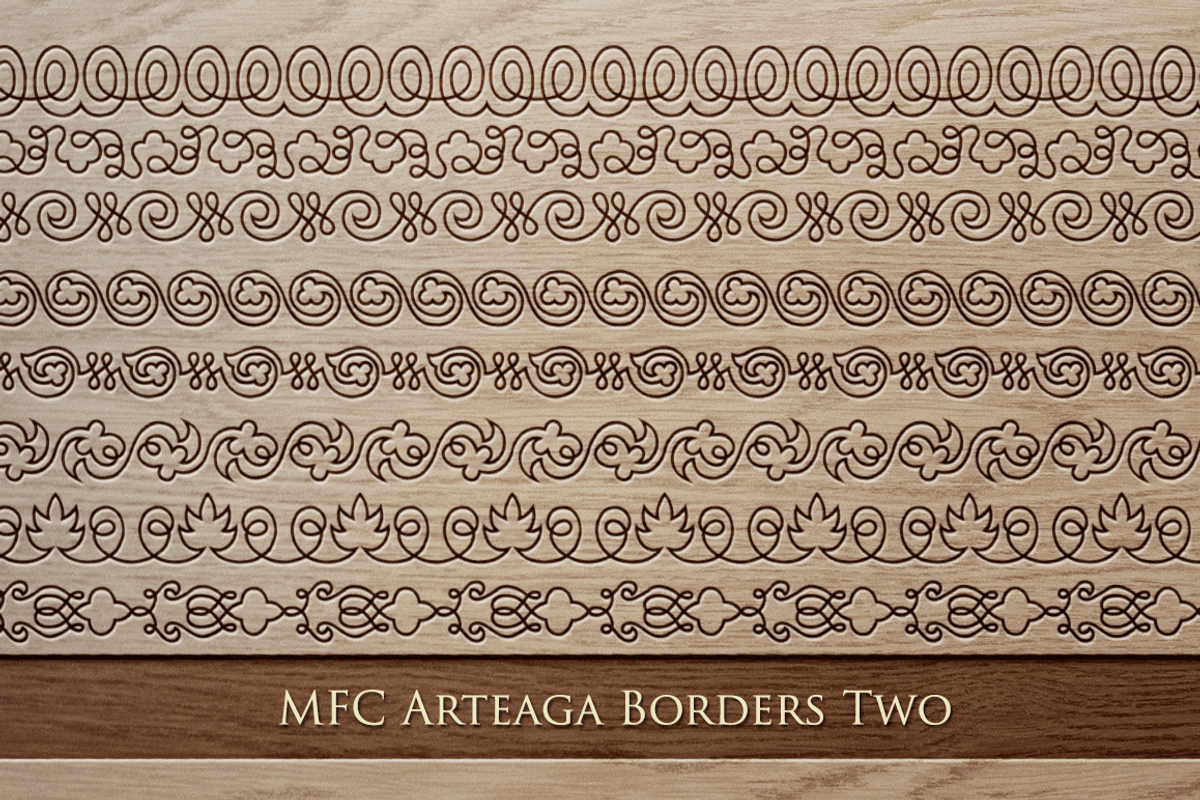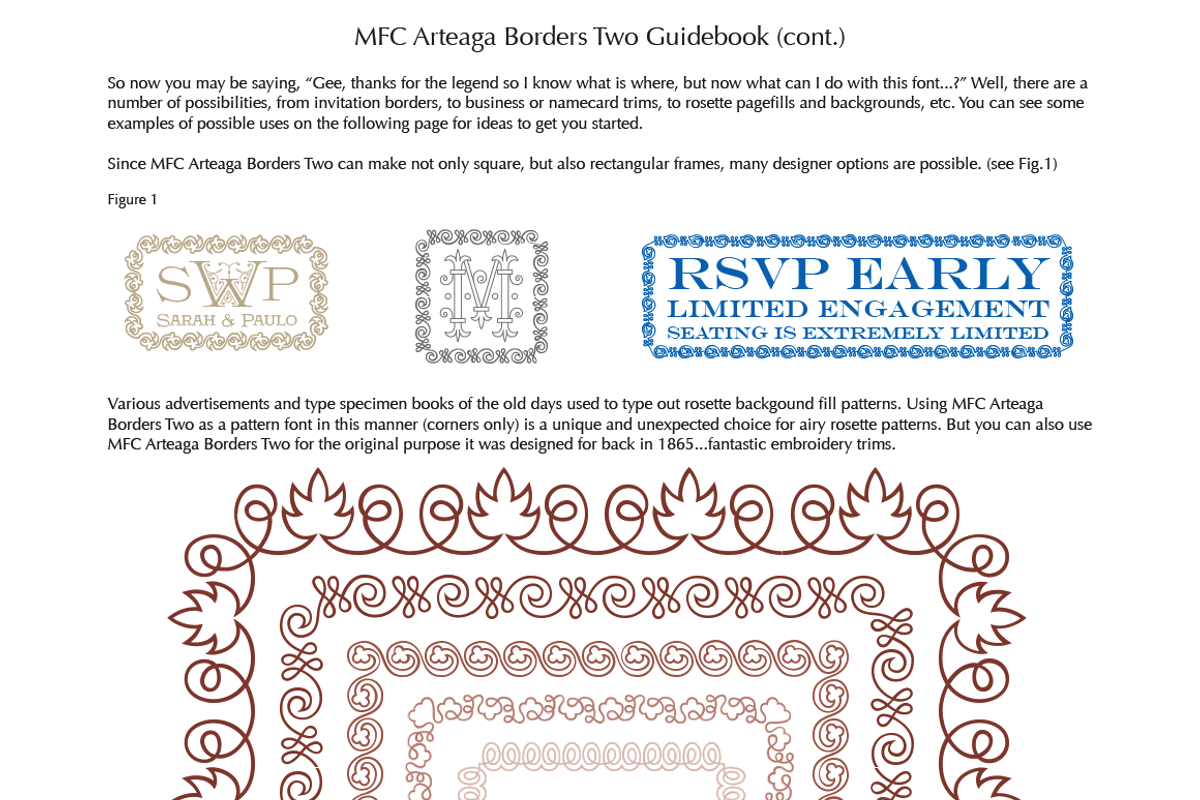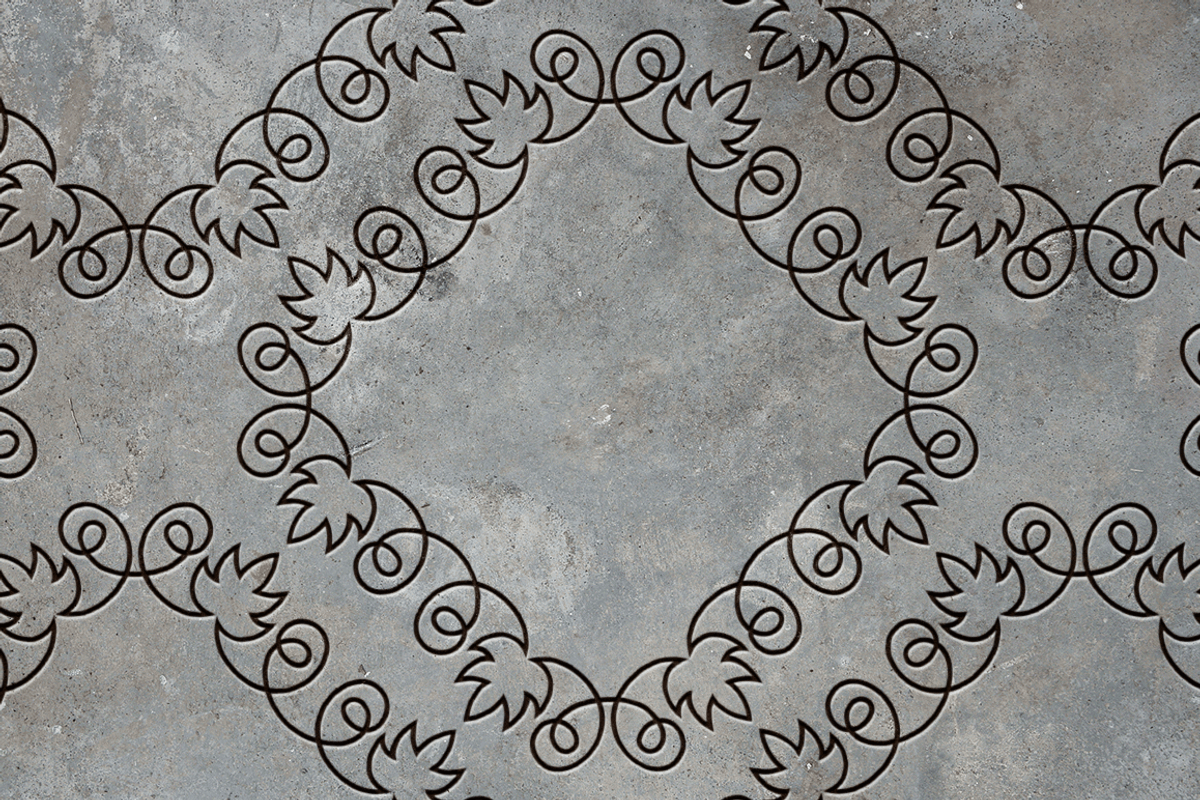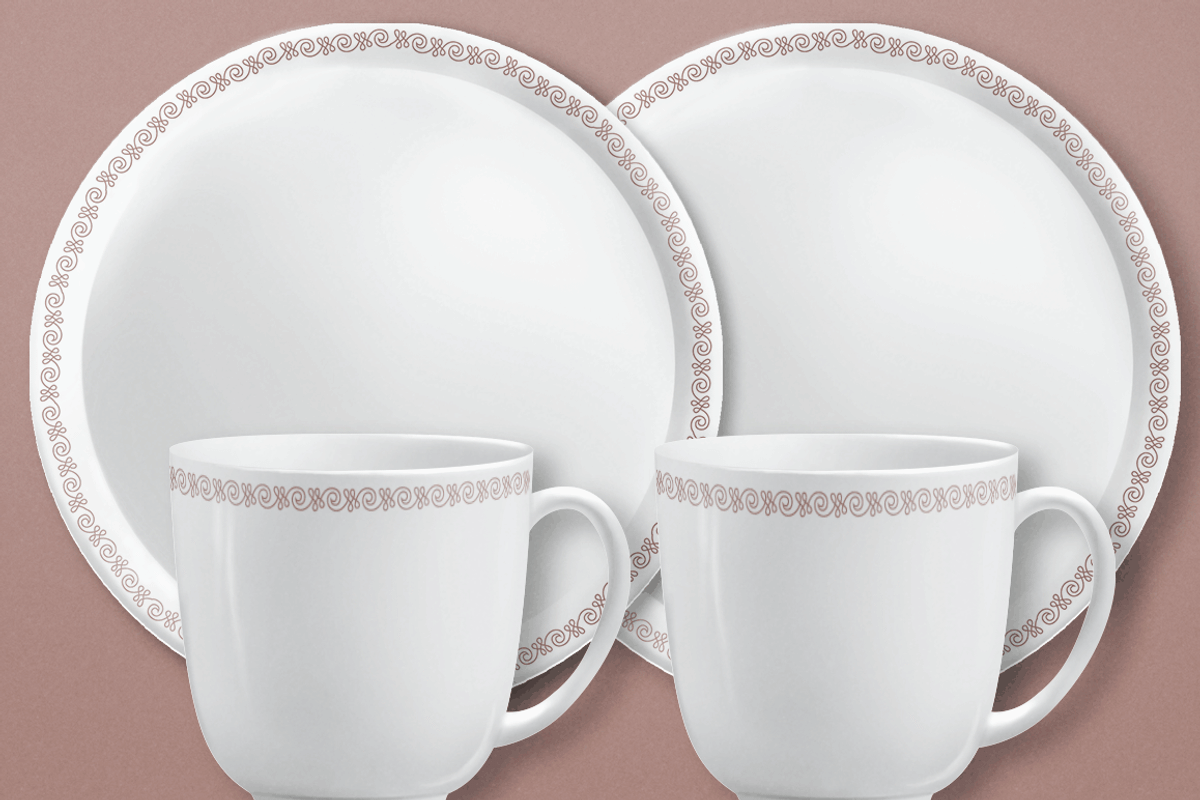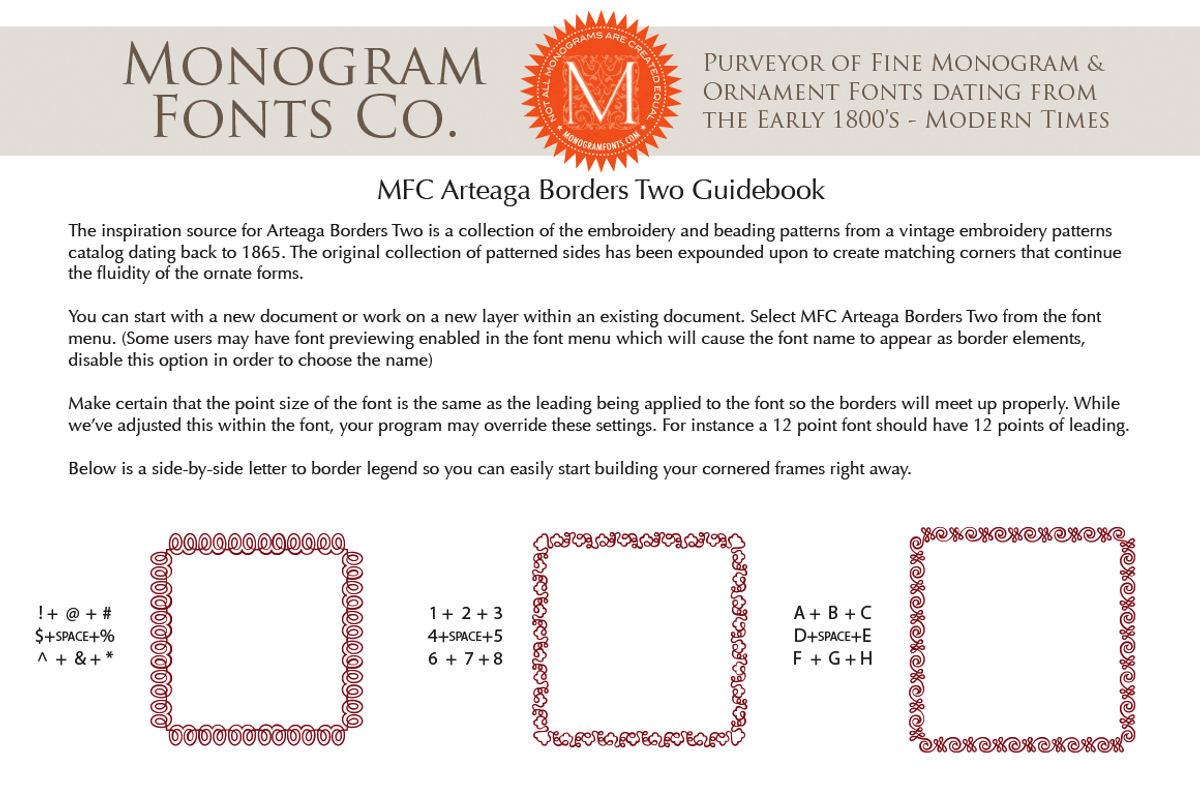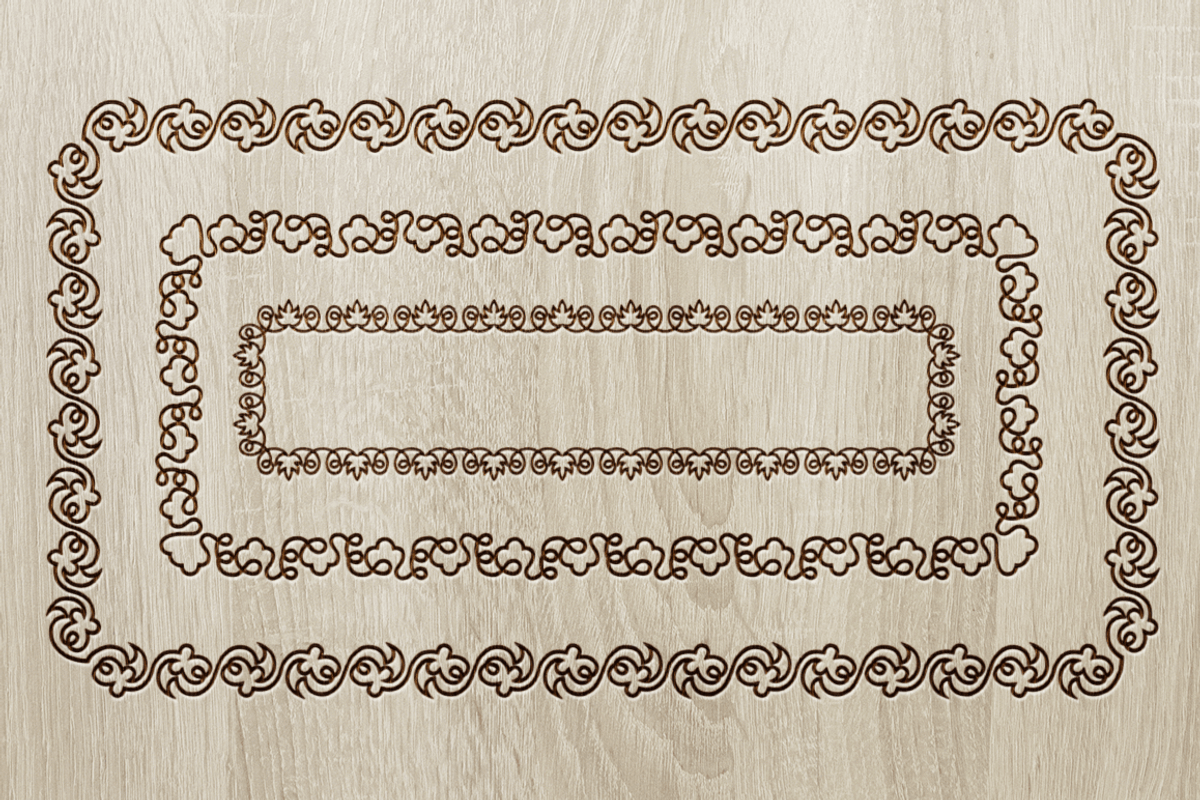
MFC Arteaga Borders Two
MFC Arteaga Borders Two by Monogram Fonts Co. is a font selected for branding, posters, packaging, typography.
Why MFC Arteaga Borders Two is worth a look
MFC Arteaga Borders Two by Monogram Fonts Co. fits naturally into Branding, posters, packaging, typography.